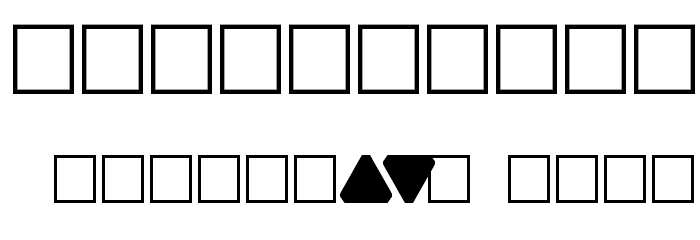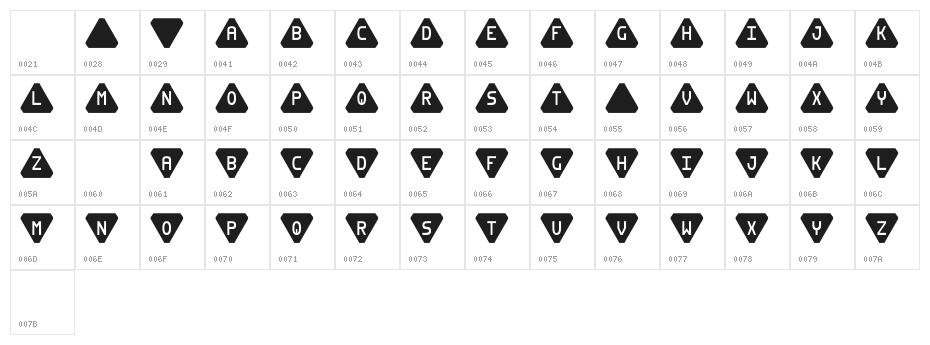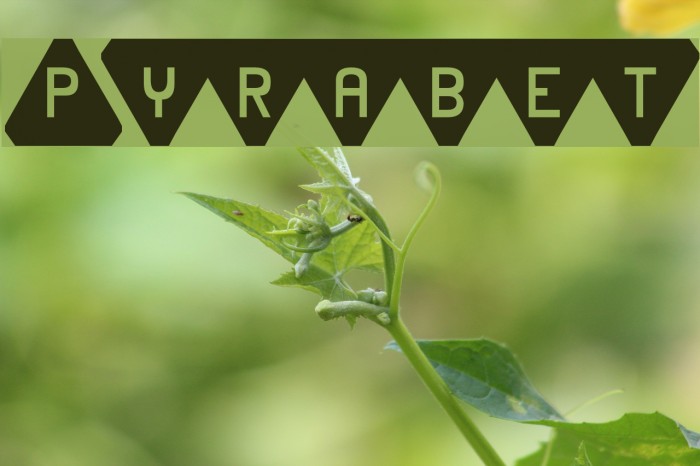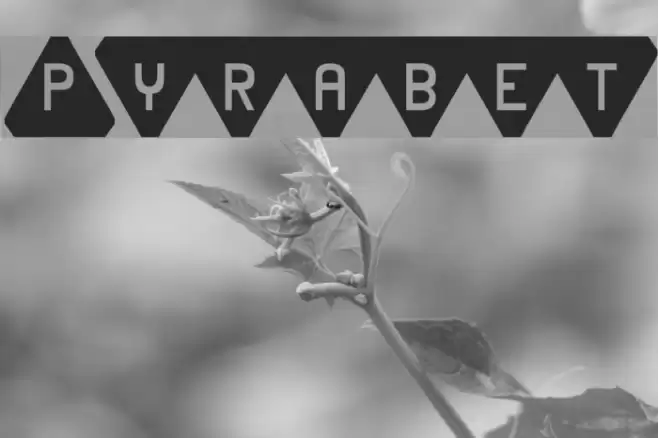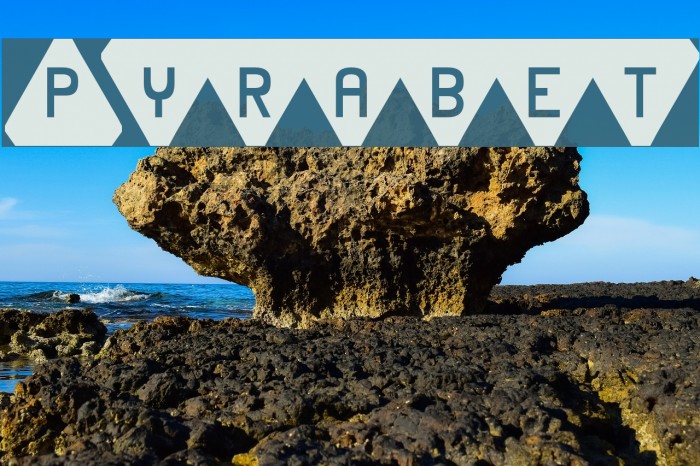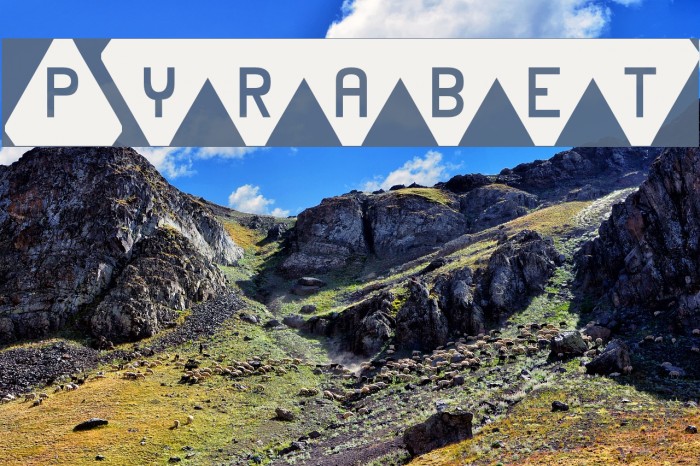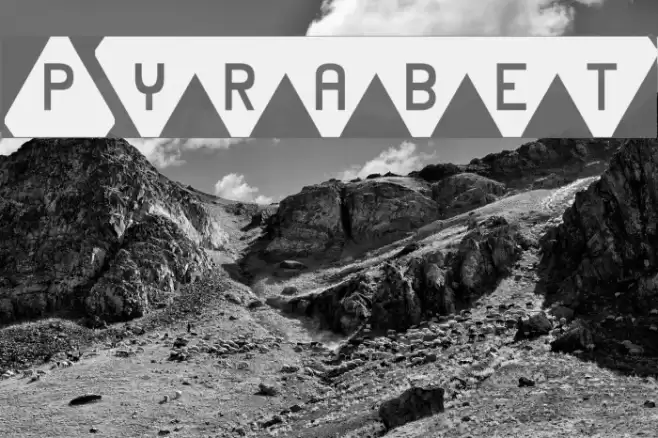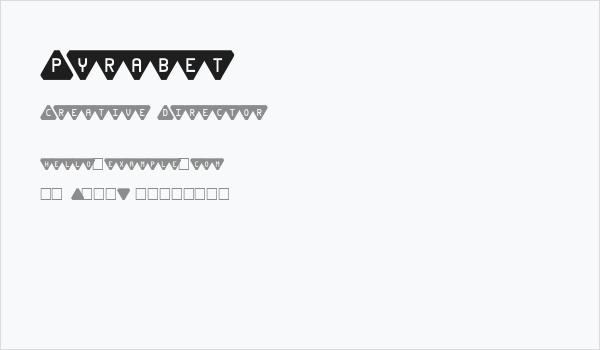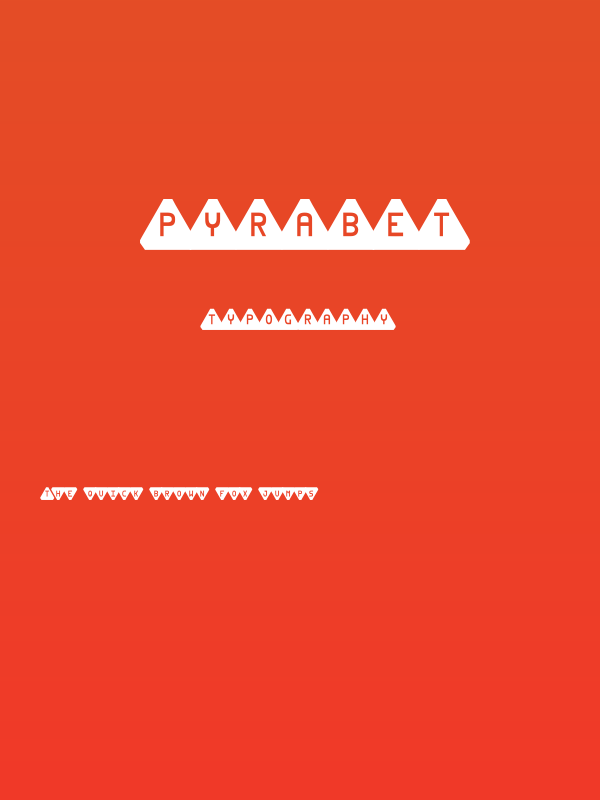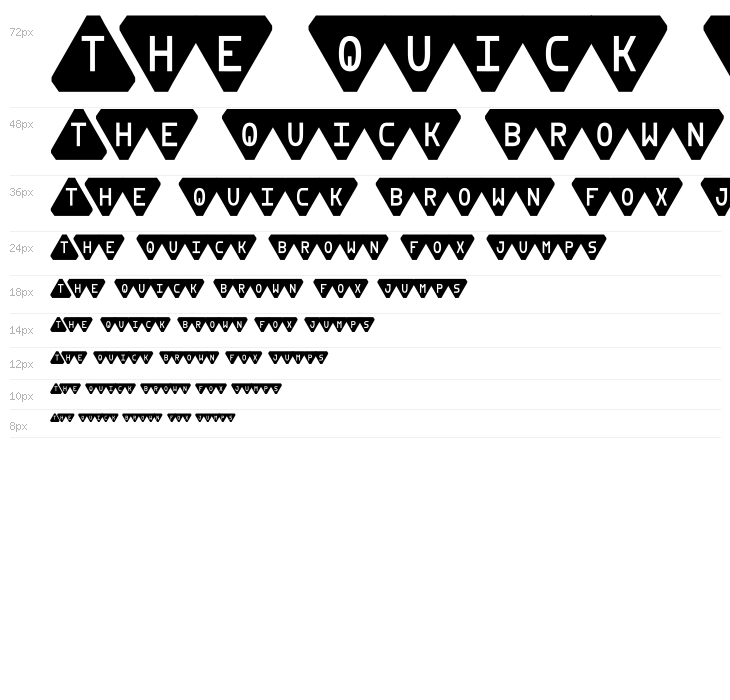
Pyrabet Font
Pyrabet Description
This font features a unique design where each character is enclosed within a triangular shape, creating a bold and geometric appearance. The letters are uppercase and have a uniform stroke width, contributing to a modern and structured look. The triangular enclosures add a distinctive and decorative element, making the font stand out. The overall style is quite futuristic and could be used to convey a sense of innovation or technology. The font lacks lowercase letters and numerals, focusing solely on uppercase characters.
| Use Case | Logos, Headlines |
| Proposed Projects | Ideal for branding, logos, and headlines that require a futuristic and innovative appearance. |